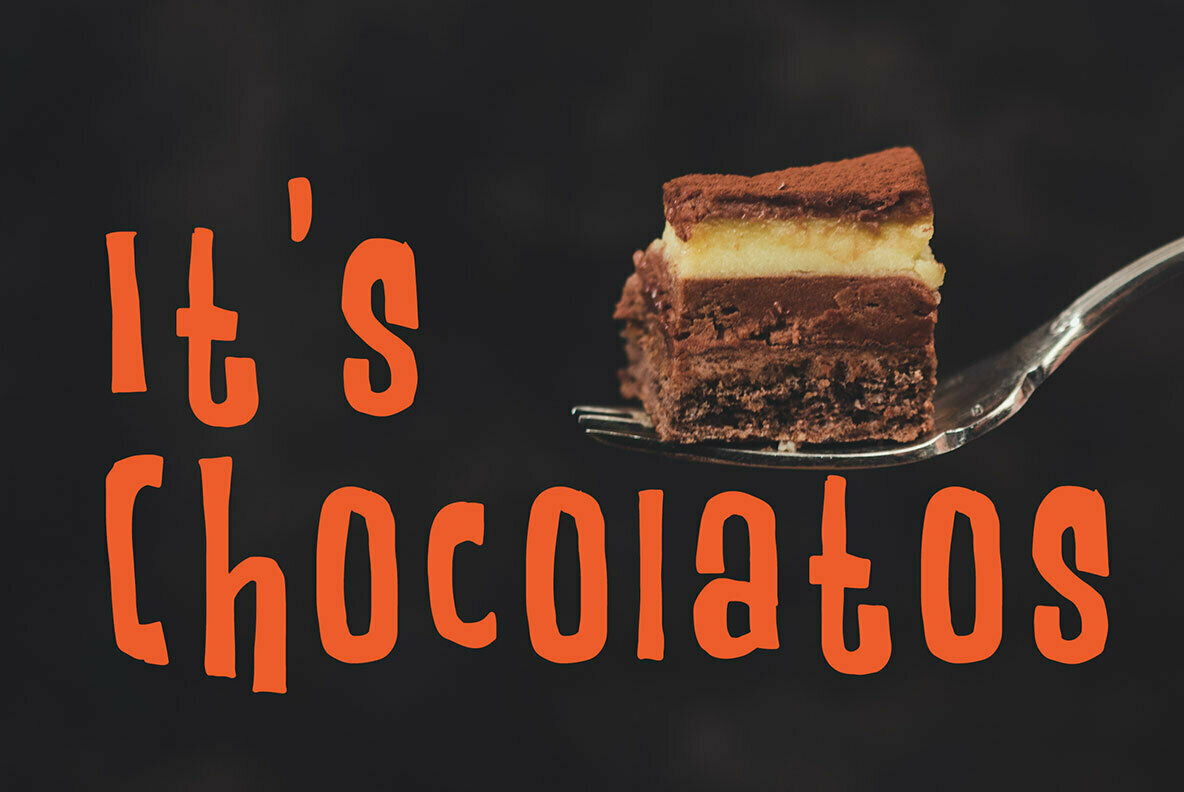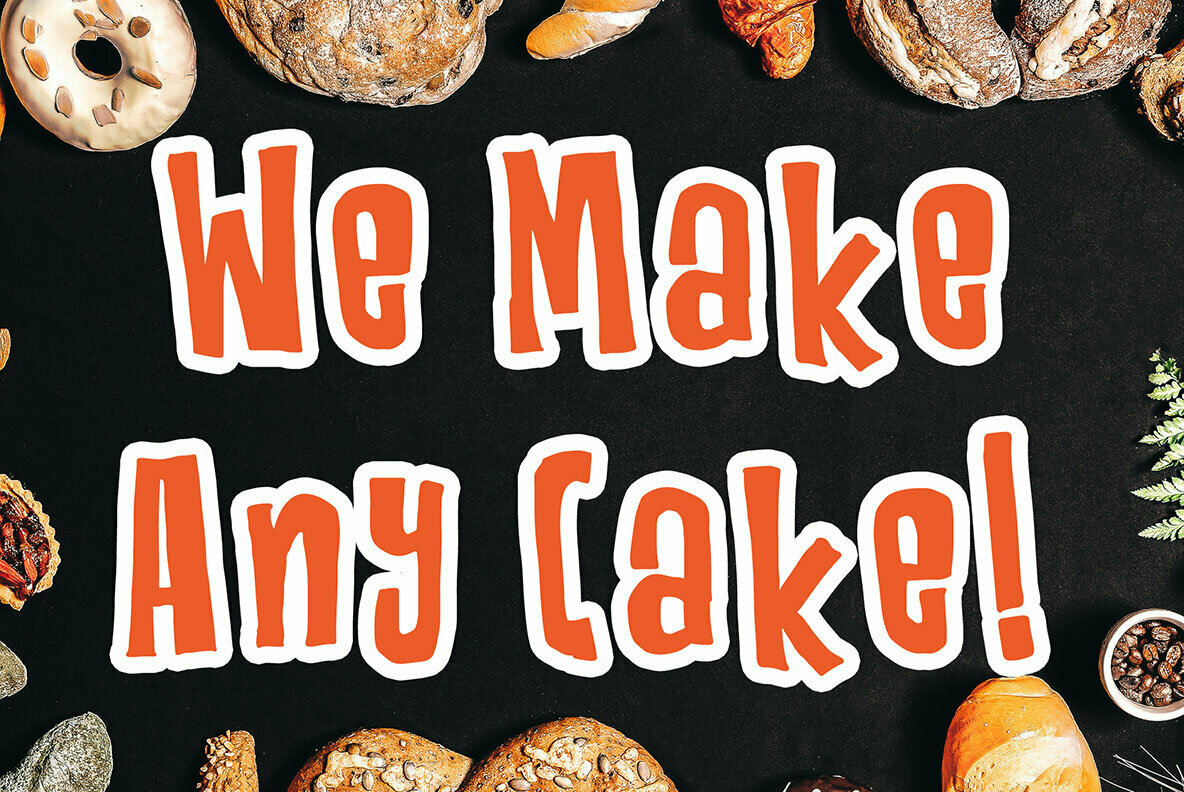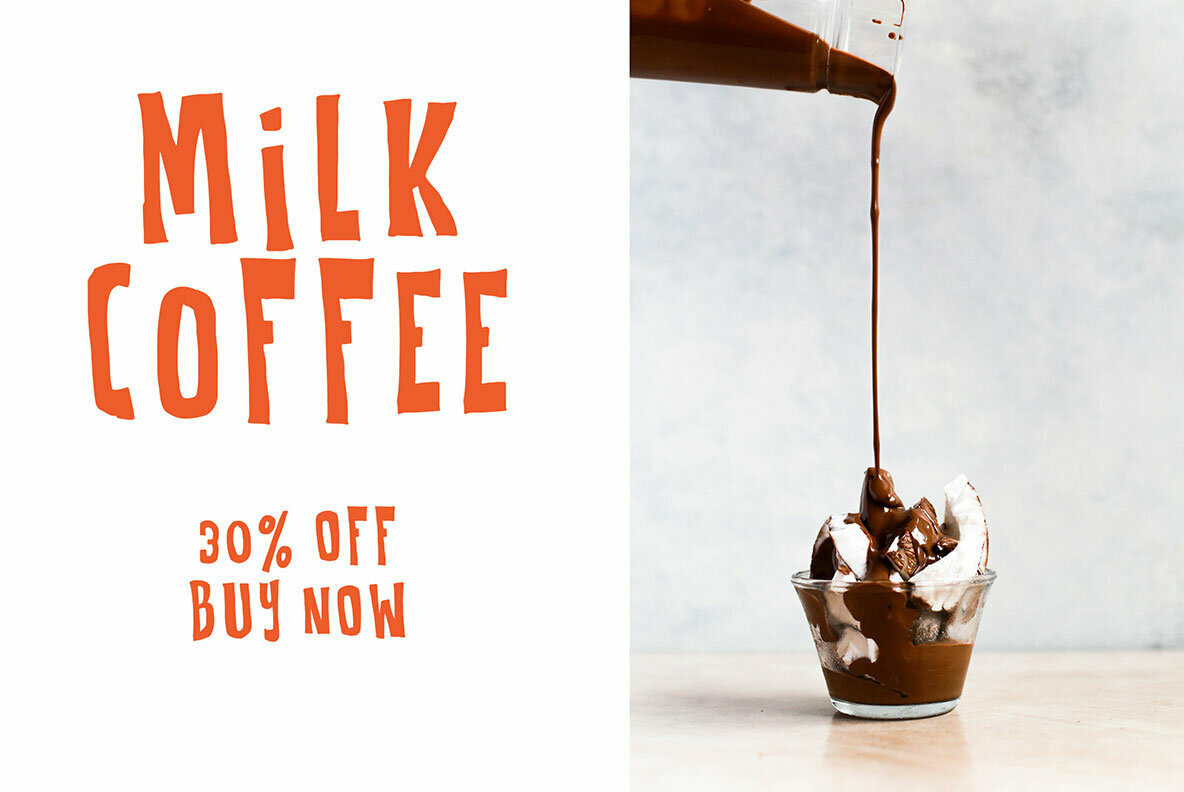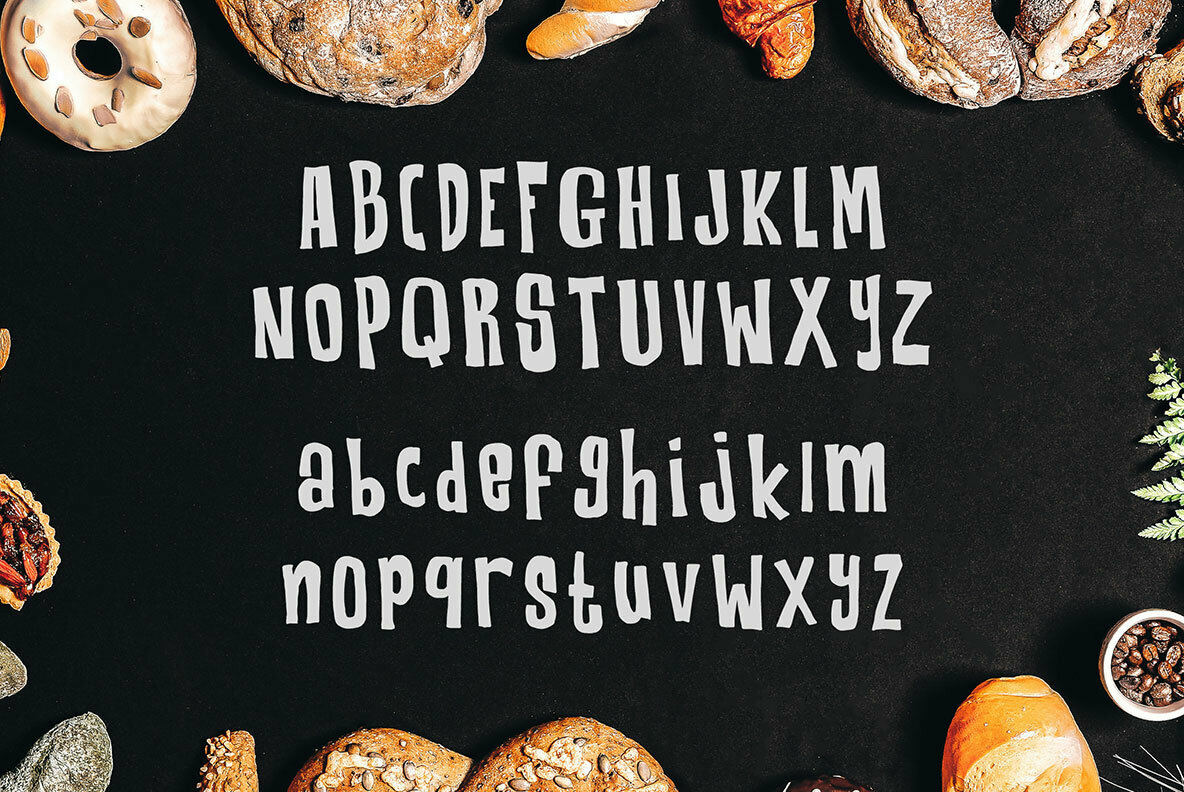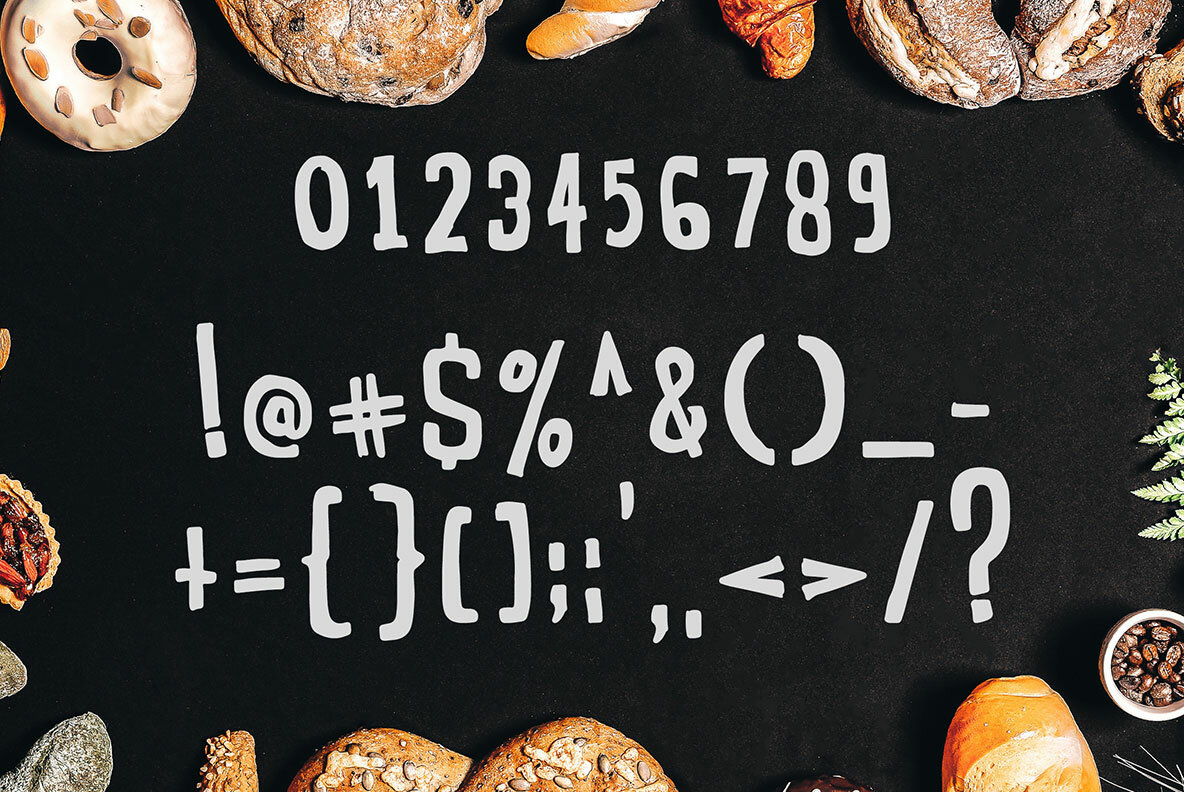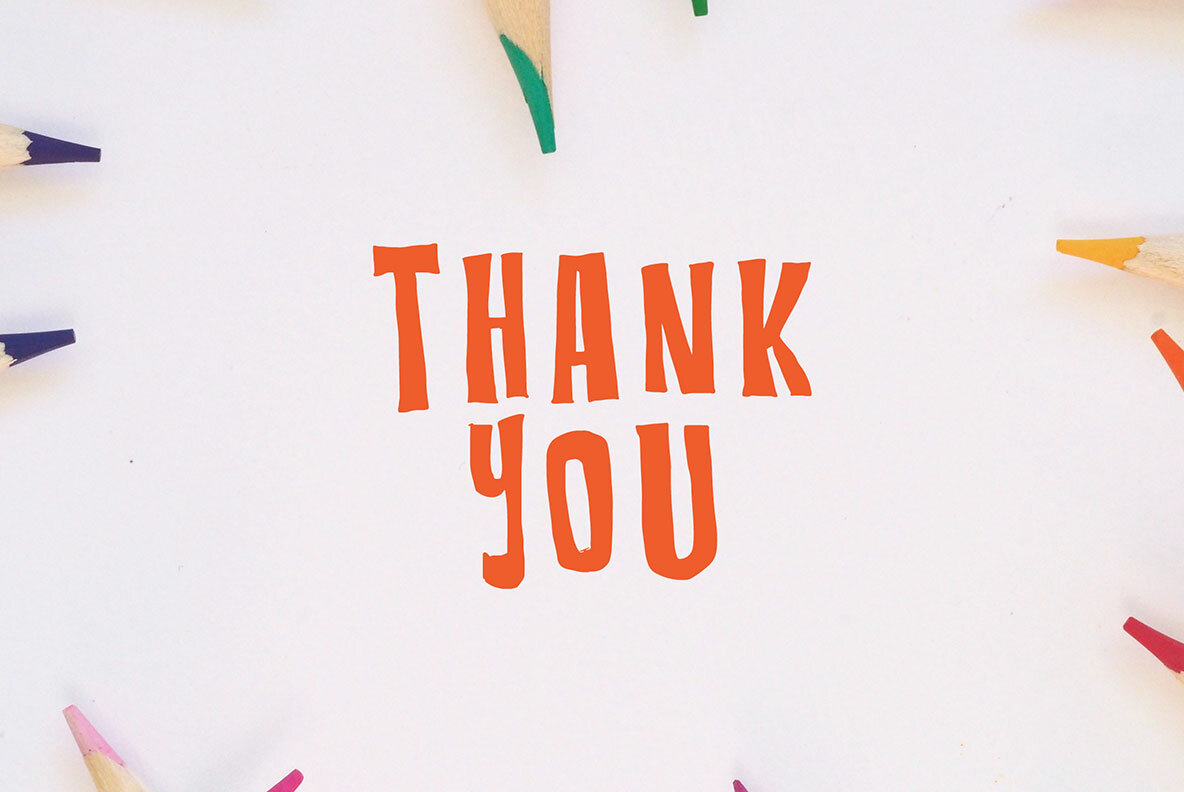
Robeck Font
Robeck
Crafted with precision, Robeck is a bold display font that seamlessly combines elegance with a handwritten flair. Its exquisite form offers unparalleled readability, making it a stylish choice for diverse design needs. Perfectly suited for professional projects, Robeck excels in applications such as signature creation, photographic watermarks, and captivating quotes. Its versatility is evident in wedding themes, fashion statements, letterheads, invitations, business cards, branding efforts, magazine layouts, and social media presentations. Whether used in logos, advertisements, or product designs, Robeck maintains a sophisticated charm.Robeck: Elegant Display Meets Handwritten Class